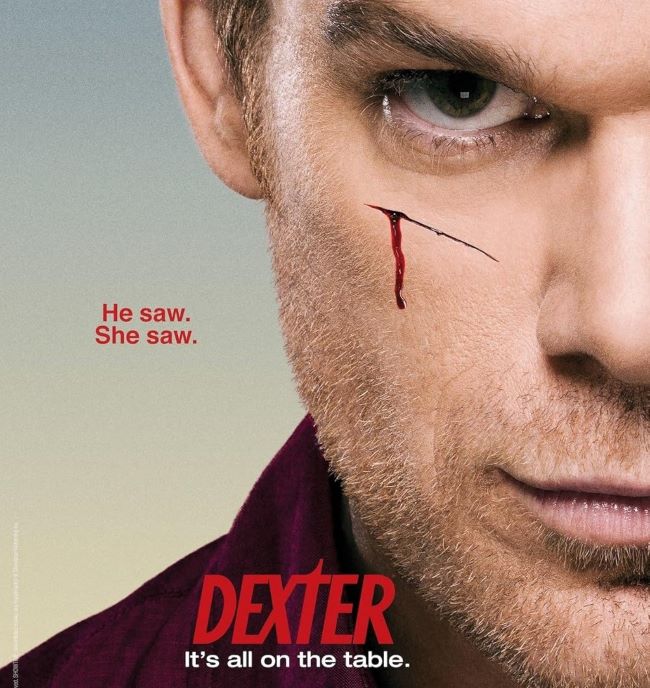
Dexter Font
The Dexter Font perfectly embodies the dark, suspenseful, and unsettling tone of the hit crime drama Dexter. Its bold, sharp, and slightly distorted lettering mirrors the psychological tension and hidden brutality of the series. Often displayed in striking red, the font emphasizes danger and intensity, making it instantly recognizable to fans. Similar fonts and free alternatives can capture this chilling, thriller-inspired aesthetic, ideal for horror, crime, or suspense-themed projects.
About Dexter
Premiering in 2006, *Dexter* is a crime drama series that follows Dexter Morgan, a Miami-based blood spatter analyst who secretly operates as a vigilante serial killer. The show blends crime-solving, dark humor, and moral ambiguity, creating a gripping and unique narrative. Praised for its suspenseful storytelling and complex characters, *Dexter* left a lasting impact on modern television and continues to inspire fans and creators alike.